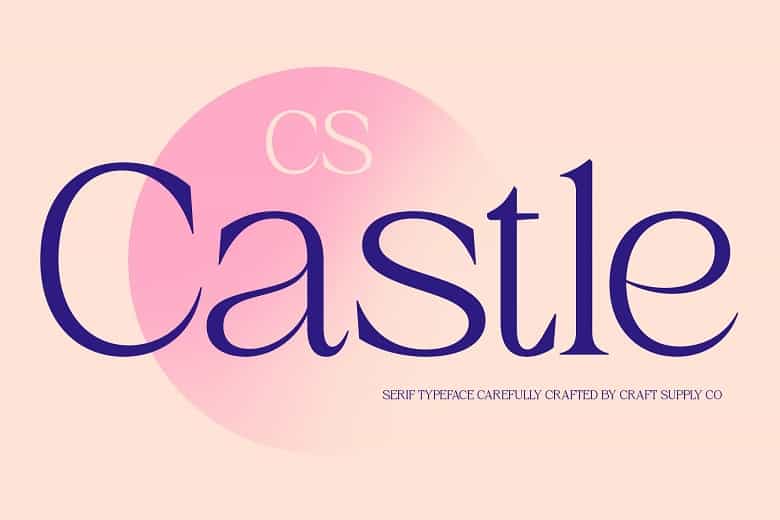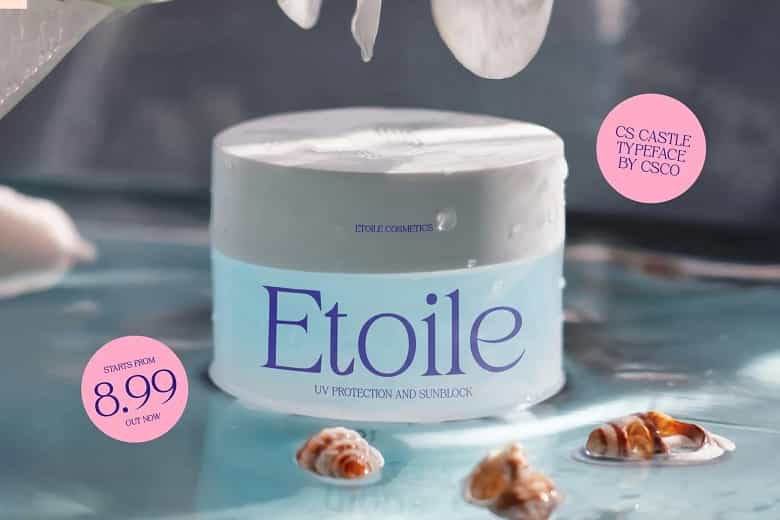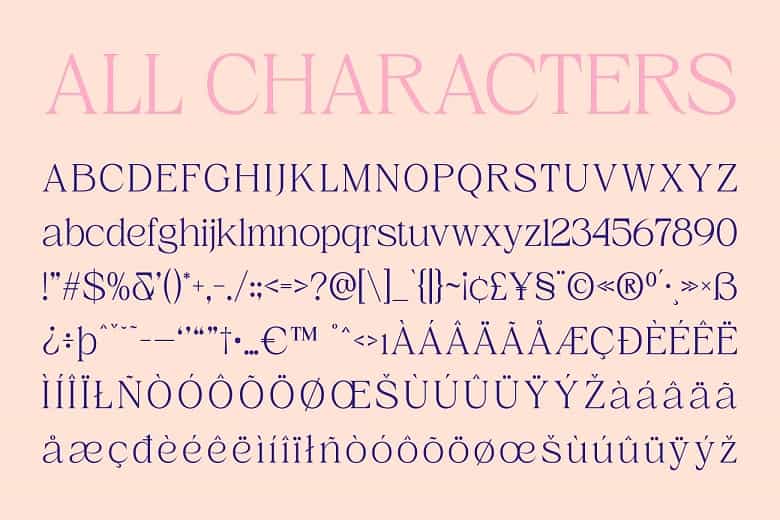
CS Castle is a new modern serif typeface that has been created with fine and delicate features. It has elegant, understated serif and square, well- horizontal lettering which gives it a modern look. The soft bends and well-crafted edges and corners further add to its appeal and make it a perfect item to depict elegance and sophistication.